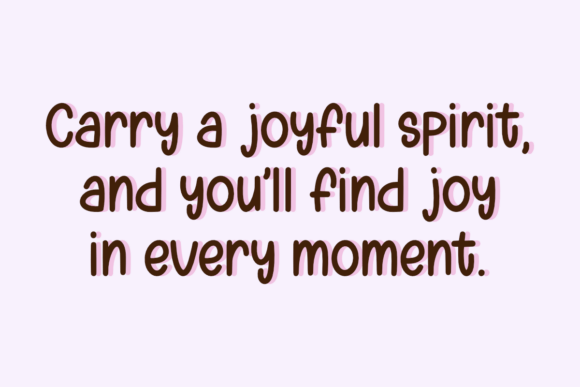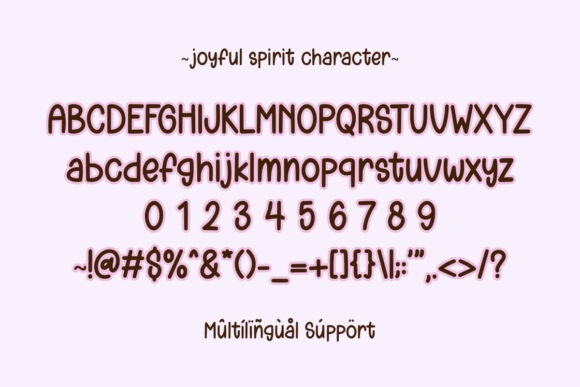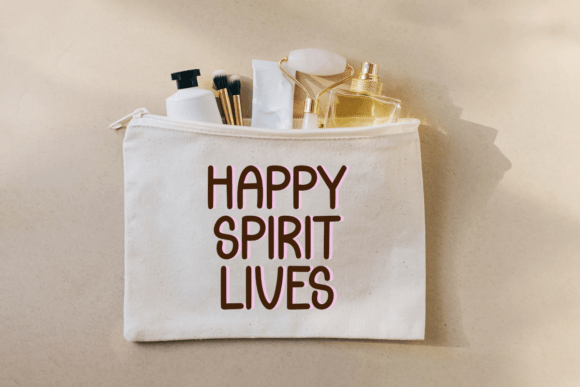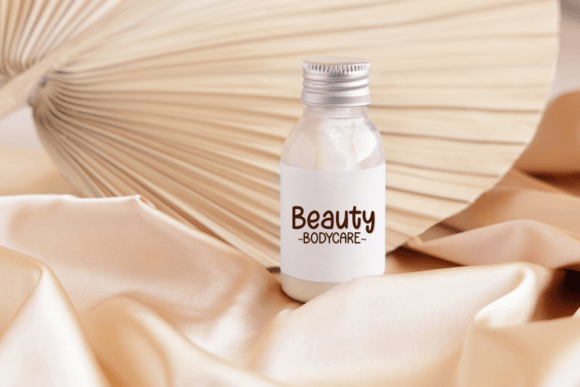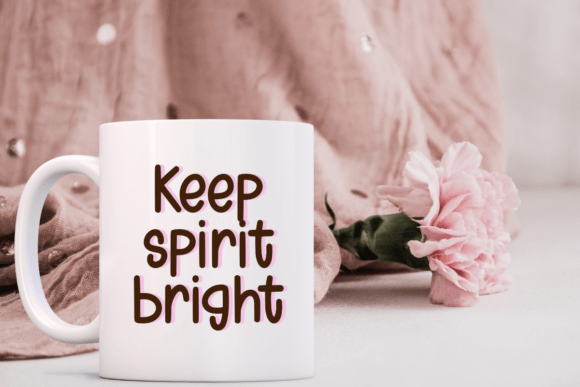
Introduction to Joyful Spirit Font
Do you remember the feeling of excitement and joy when you first started a new creative project? Maybe it was a DIY craft, a handmade card, or a beautiful journal spread. Whatever it was, the thrill of bringing your ideas to life is something that never gets old. For many of us, this feeling is the driving force behind our creative pursuits, and it’s what makes the process of creating so rewarding. In this article, we’ll be exploring one design resource that can help you tap into this feeling: the Joyful Spirit Font.
As a designer, you’re likely always on the lookout for high-quality resources to elevate your craft. Whether you’re working on a free download or a paid project, having the right font can make all the difference. The Joyful Spirit Font is a perfect example of this, offering a cute and playful handwritten style that’s perfect for planners, stickers, cards, quotes, and craft projects. With its transparent background, this font is also incredibly versatile, making it a valuable addition to any designer’s toolkit.
Key Features of Joyful Spirit Font
- The Joyful Spirit Font is a high-quality design resource ideal for creative projects that require a touch of elegance and sophistication.
- This free download font features a transparent background, making it easy to overlay on any image or design without any background clutter.
- The Joyful Spirit Font is designed to be highly legible, even at small font sizes, making it an excellent choice for body text and headings.
- This font features a unique blend of modern and classic elements, giving it a timeless and versatile look that suits a variety of design styles.
Honest Review: Joyful Spirit Font
As a designer, I’m always on the lookout for high-quality design resources to enhance my creative projects. The Joyful Spirit Font is one such find that I’d like to share with you.
- ✨ High-quality design: The font is beautifully crafted with a clear and legible design.
- ✨ Transparent background: This allows for seamless integration with other design elements.
However, I do have a few concerns:
- ⚠️ Limited language support: I wish the font supported more languages, especially for international design projects.
- ⚠️ Not ideal for small text: While the font is great for headings and titles, it may not be the best choice for small text due to its large x-height.
Overall, I’m impressed with the Joyful Spirit Font’s design and versatility. While it may have some limitations, it’s a great addition to any designer’s toolkit, especially for creative projects that require a touch of elegance and sophistication.
Tips for Getting the Most Out of Joyful Spirit Font
To get the most out of the Joyful Spirit Font, use it in combination with a transparent background to create a clean and modern design. You can also experiment with different font sizes, colors, and styles to create a unique look.
The Joyful Spirit Font is perfect for creating eye-catching headings and titles for your designs. It’s also great for creating custom typography elements and adding a personal touch to your projects. With its high-quality design and transparent background, the Joyful Spirit Font is a must-have resource for any creative project.